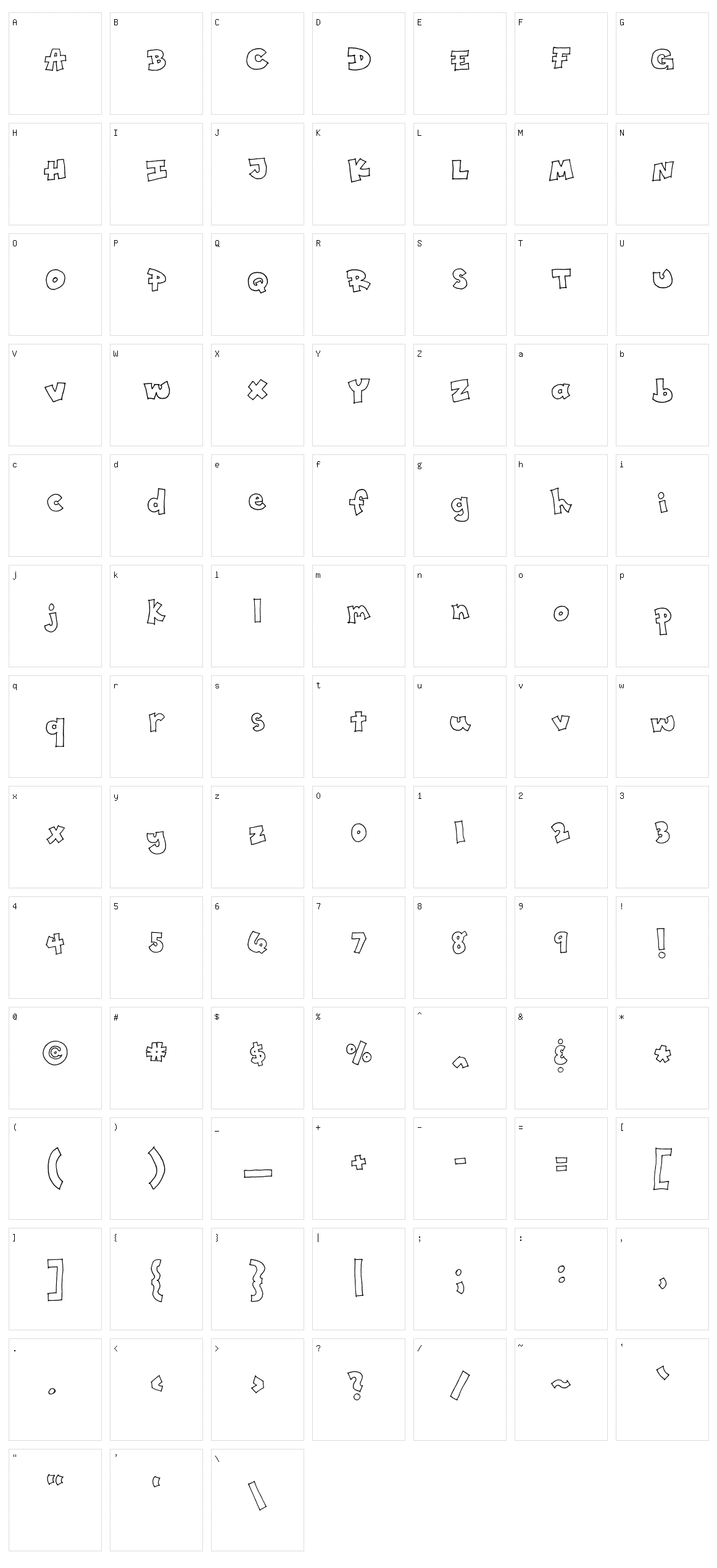
The free font Toony is carefully designed by Kevin Richey, showcasing a thoughtful balance of creativity and usability and falls under the Cartoon font style. When you download the ZIP file, it contains only 405.93 KB of font files, making it lightweight and quick to download. Please review the license details below to understand permitted usage and distribution rights. If license information is not available, we recommend using this font for personal projects only or contacting the author directly for commercial usage permissions.